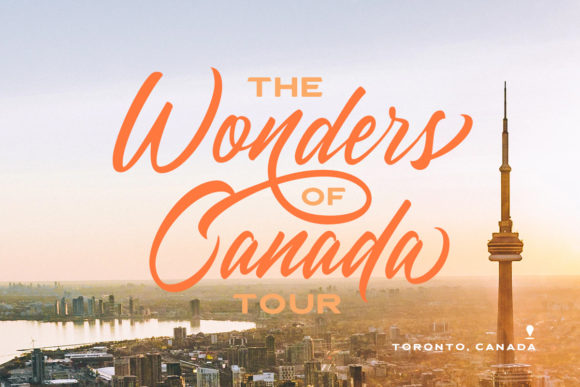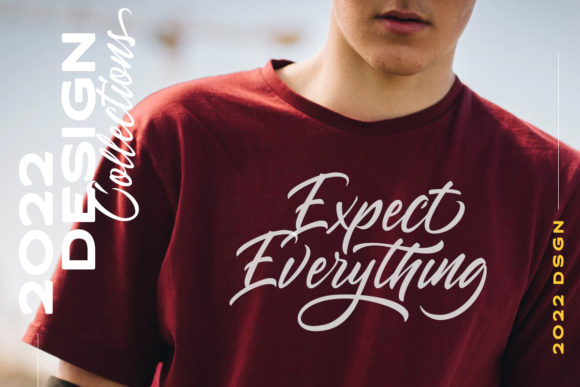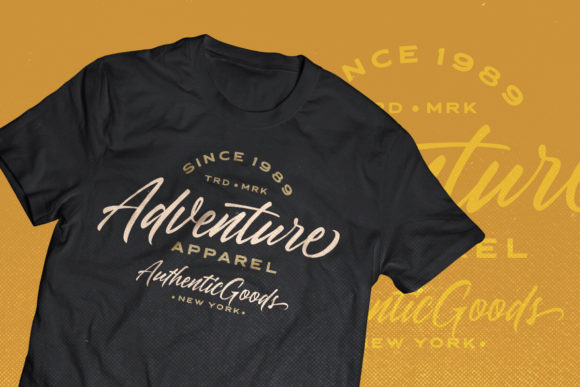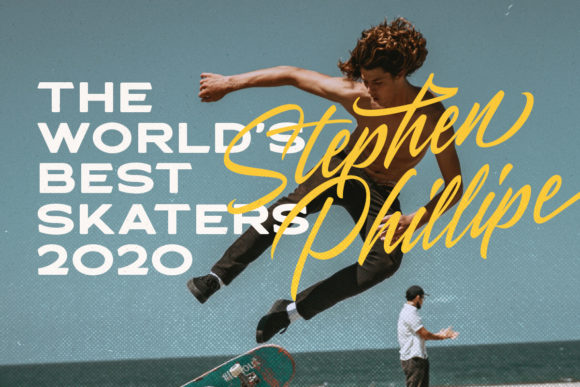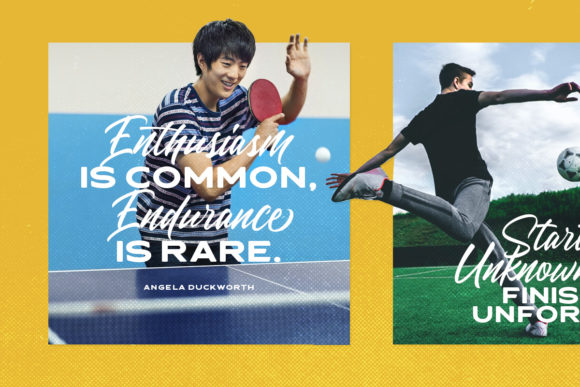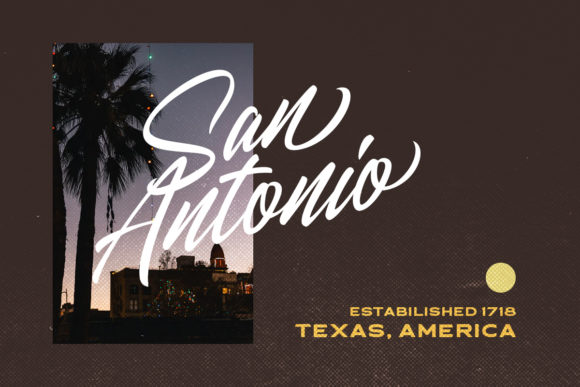
Introduction to Quick Counters Font
Have you ever stared at a blank page, pen in hand, trying to bring a creative project to life? The blank slate can be both exhilarating and intimidating, but with the right tools, the possibilities become endless. For designers, finding the perfect font can be the difference between a good design and a great one. That’s where Quick Counters Font comes in – a sweet and friendly handwritten font that’s sure to bring a touch of personality to any project.
With its natural and unique style, Quick Counters Font is the ultimate design resource for creatives who want to add a handwritten touch to their work. Whether you’re designing wedding invitations, thank you cards, or logos, this font is sure to impress. And the best part? It’s PUA encoded, making it easy to access all the glyphs and swashes you need to create high-quality designs with a transparent background.
Key Features of Quick Counters Font
Honest Review: Quick Counters Font
- ✨ Clean and modern aesthetic that’s perfect for creative projects
- ✨ High-quality design that’s suitable for a variety of applications
- ✨ Transparent background makes it easy to overlay on images or other elements
- ⚠️ Limited character set, which may not be suitable for extensive text-based designs
- ⚠️ Not ideal for small font sizes, as the design may become pixelated
Overall, I’m impressed with the Quick Counters Font. It’s a great addition to any designer’s toolkit, and I can see it being used in a variety of creative projects. While it may not be perfect, its unique design and high-quality construction make it a valuable resource for designers looking for a modern and clean aesthetic.
Quick Counters Font is a versatile design resource ideal for various creative projects. This high-quality font features a transparent background, making it easy to customize and integrate into your designs.
For optimal results, use Quick Counters Font in conjunction with a high-quality image or background. Experiment with different font sizes and styles to achieve the desired look.
Quick Counters Font is ideal for various creative projects, including:
What are the technical details of the Quick Counters Font?